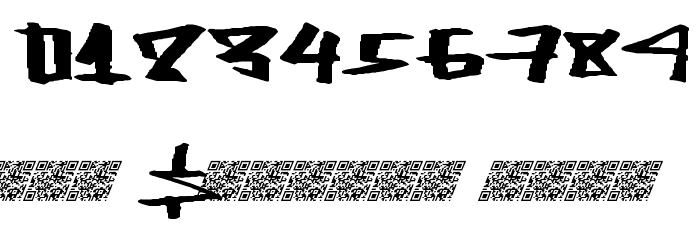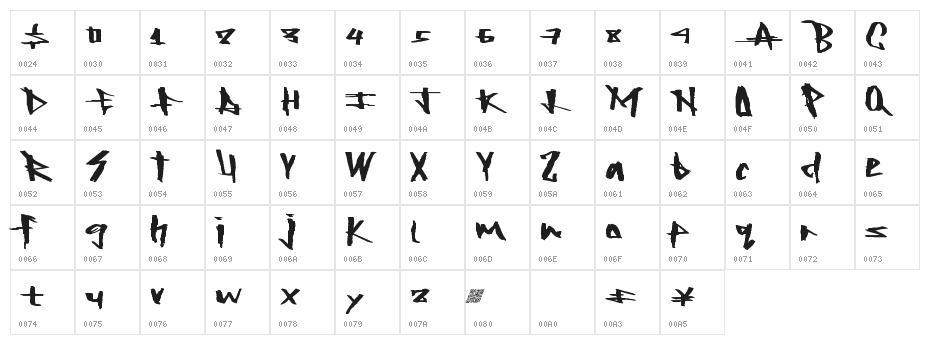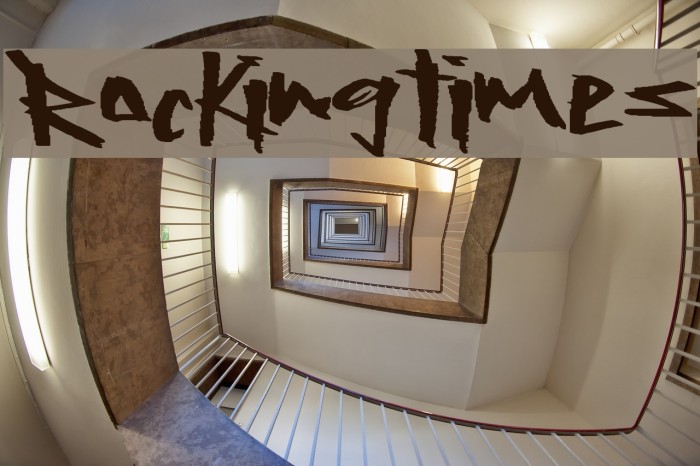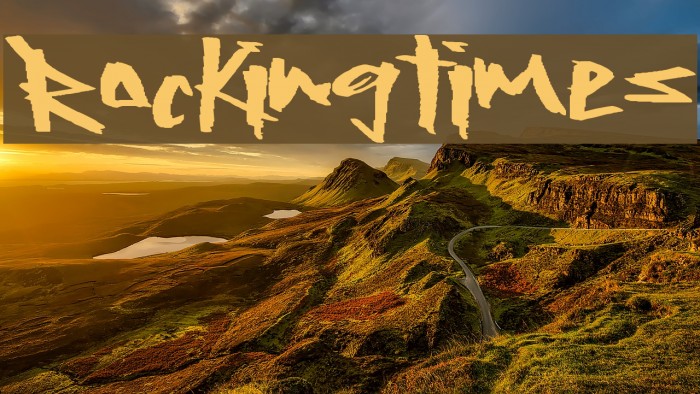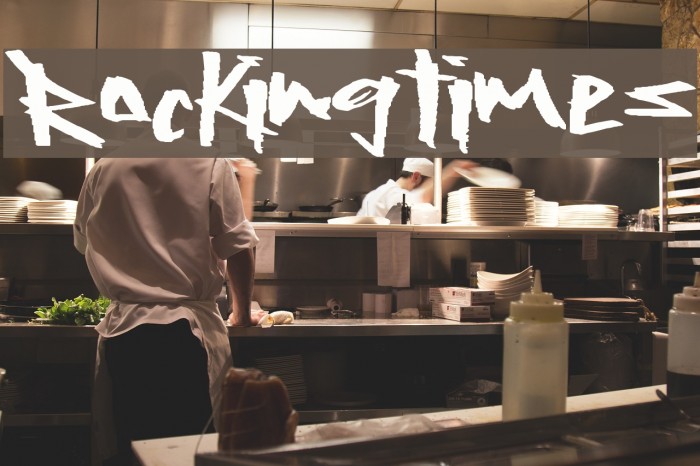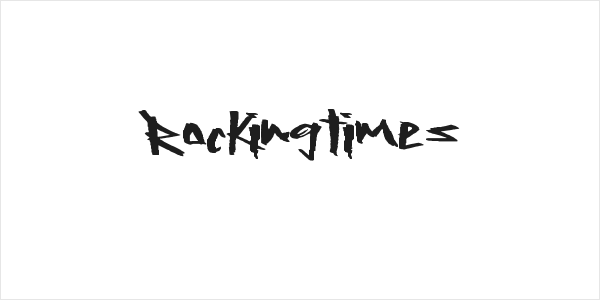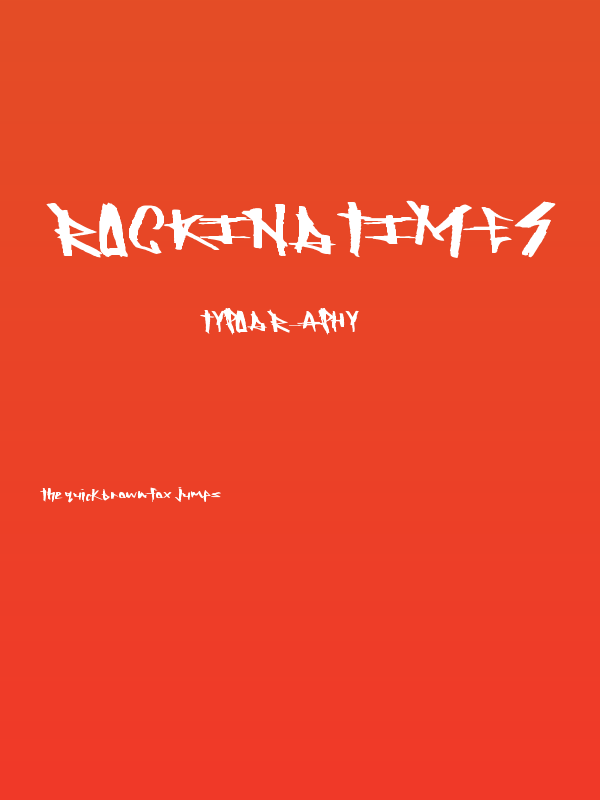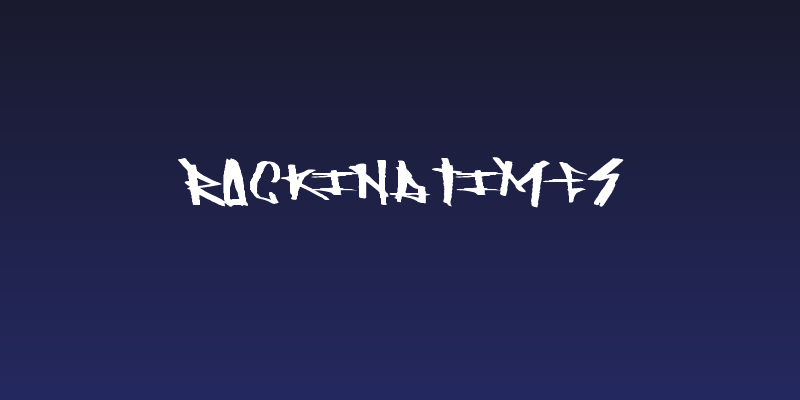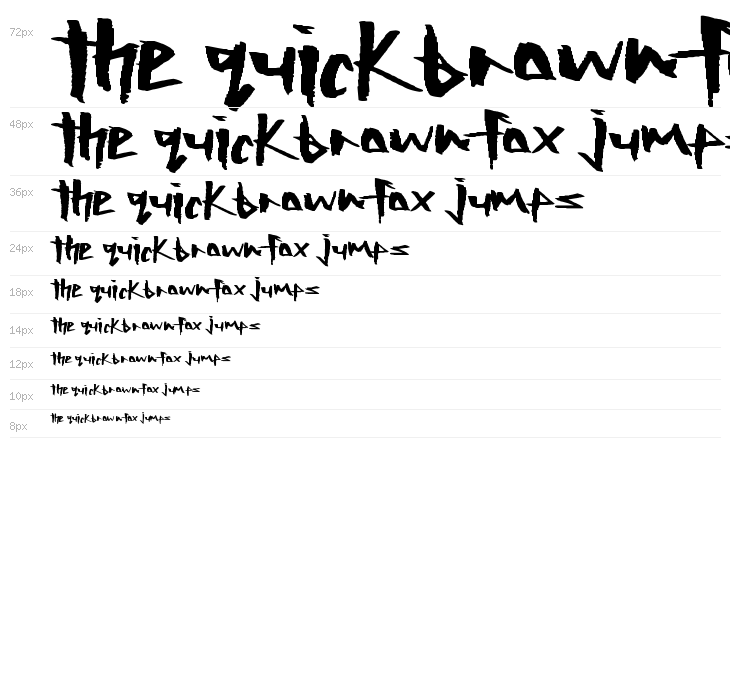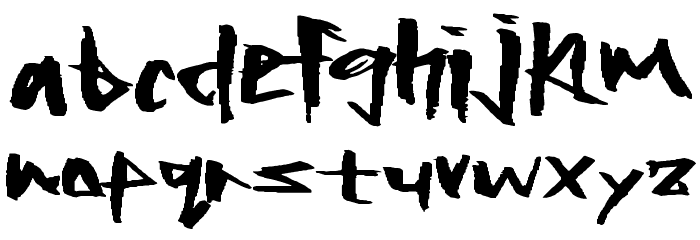
RockingTimes Font
RockingTimes Description
This font exhibits a bold, edgy style with a hand-drawn appearance. The characters are jagged and irregular, giving it a rebellious and energetic feel. The uppercase letters are particularly striking, with sharp angles and dynamic strokes that suggest movement and intensity. The lowercase letters maintain this energy, though they are slightly more subdued. Numbers and special characters follow the same aesthetic, ensuring consistency across all glyphs. This font is ideal for projects that require a strong, impactful visual presence.
| Overall Style | Modern, Edgy |
| Proposed Projects | Perfect for music album covers, event posters, streetwear branding, and any design needing a strong, energetic vibe. |